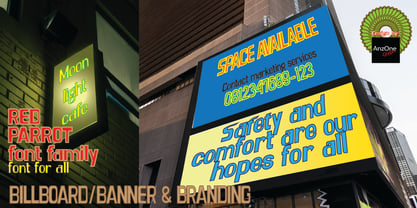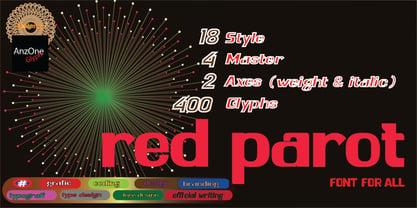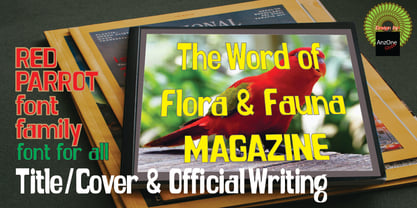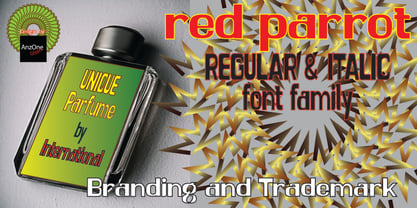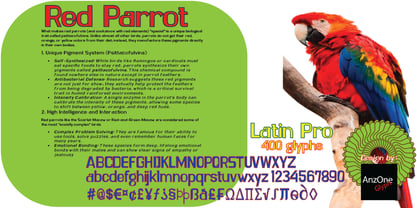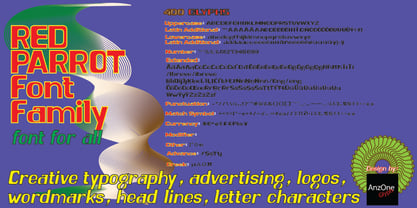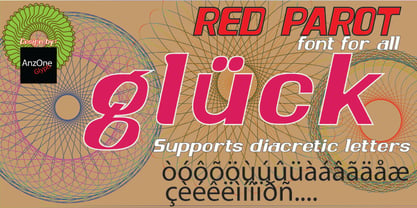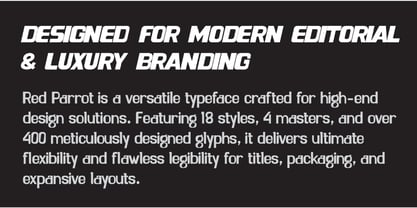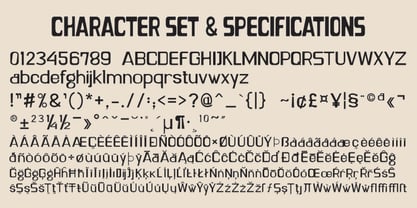
Red Parrot
by Anzone glyph
The Red Parrot Font Family was designed by Irwansyah and published by Anzone glyph. Red Parrot contains 18 styles and family package options. More about this family
Red Parrot is a distinctive font family launched by Anzone Glyph, designed with a unique and bold approach to typographic anatomy. Its defining characteristic lies in the deliberate variation of body sizes between different parts of the letterforms. The stems in Red Parrot are crafted to be highly dominant and robust, standing out significantly compared to other strokes. This heavy vertical emphasis is artfully balanced by more slender bowls, creating a striking visual contrast and a dynamic rhythm. With its powerful presence and artistic proportions, Red Parrot is an ideal choice for display headers, branding, and any design project that demands a strong, modern character.
Designers: Irwansyah Irwansyah
Foundry: Anzone glyph